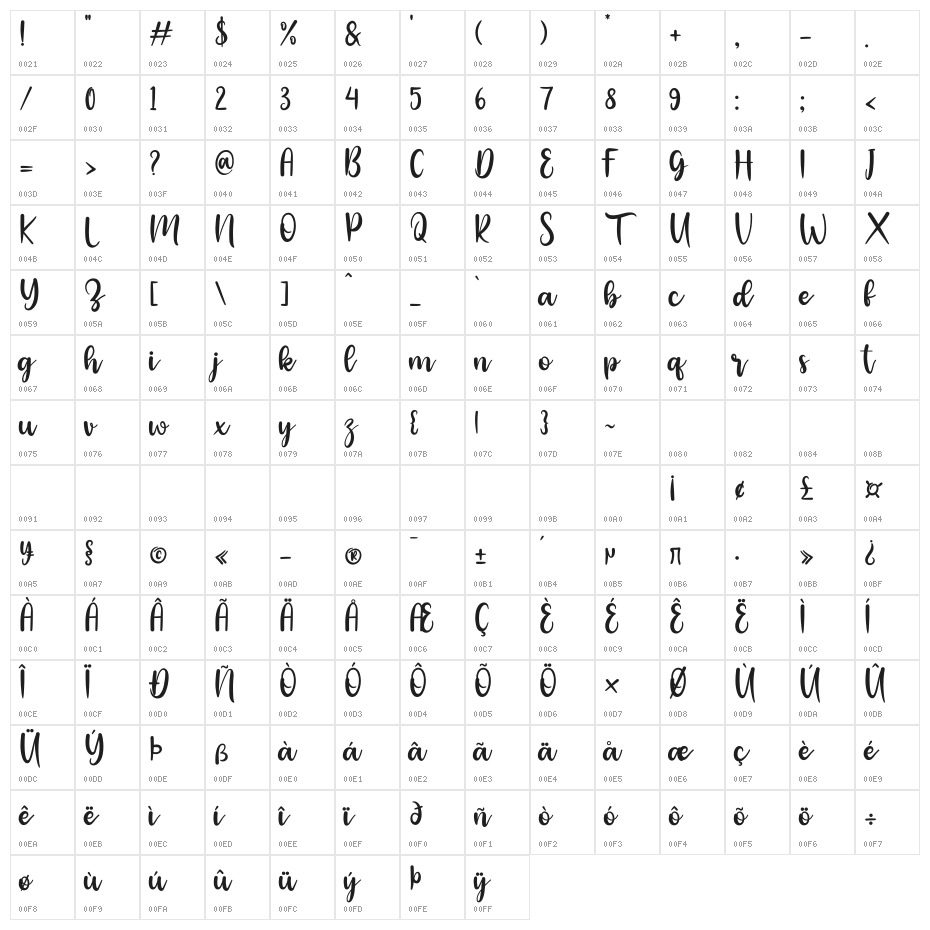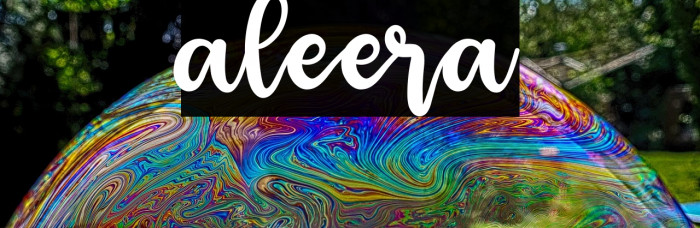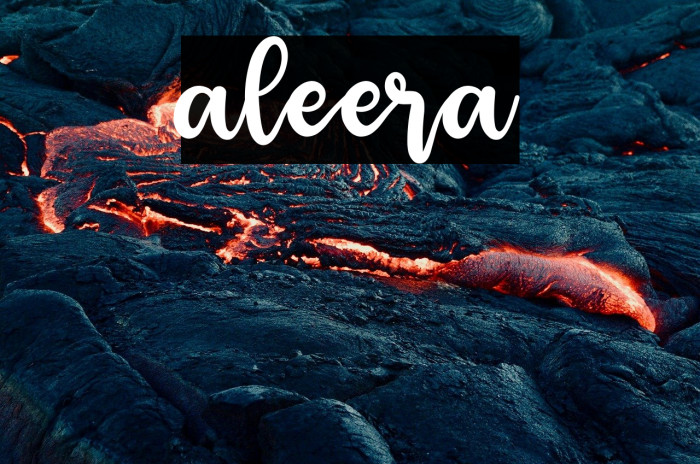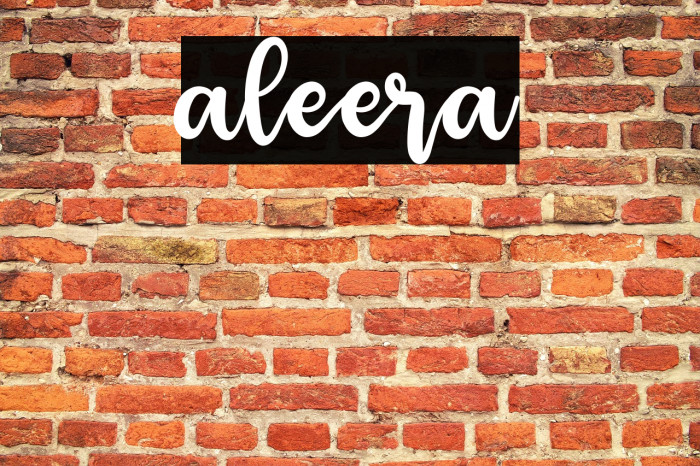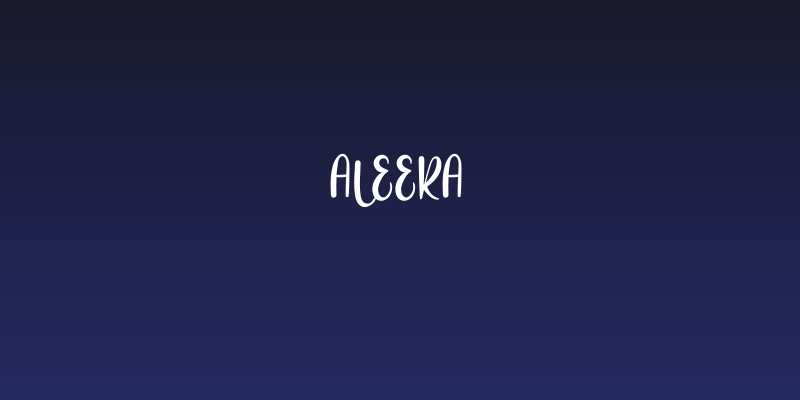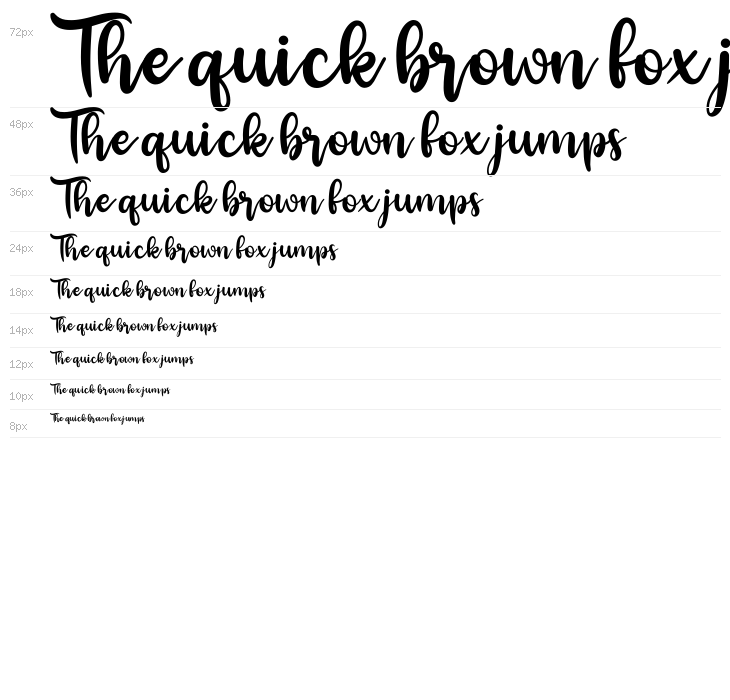
aleera Font
aleera Description
This font features a lively and expressive handwritten style, characterized by its bold and fluid strokes. The uppercase letters are tall and slightly narrow, with playful loops and curves that add a sense of movement and energy. The lowercase letters maintain a consistent flow, with some characters featuring unique flourishes that enhance the overall aesthetic. Numbers and special characters are crafted with the same attention to detail, ensuring a cohesive look across all elements. The font's dynamic appearance makes it suitable for projects that require a personal and informal touch.
| Use Case | Logos, Headlines, Invitations |
| Proposed Projects | Ideal for invitations, greeting cards, branding, social media graphics, and any project that benefits from a personal, informal touch. |